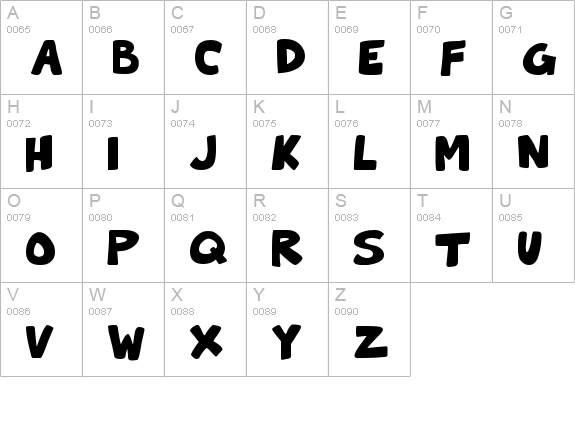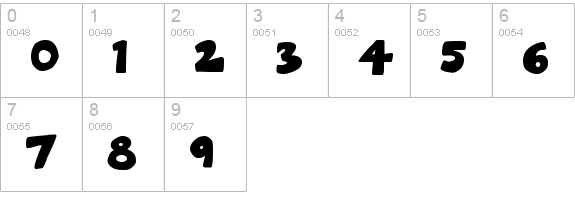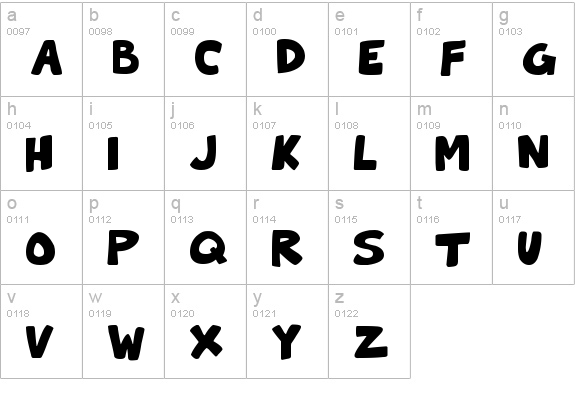
Toon Cats Font Details
Toon Cats is a free for personal use font in the Fancy > Comic category, designed by Darrell Flood. It has been downloaded 157 times and is available for Windows, Mac and Linux.
Toon Cats font is a whimsical and playful typeface that adds a touch of charm to any design project. With its quirky and cute characters, this font is perfect for creating lighthearted and fun designs. The Toon Cats font is versatile and can be used for a variety of purposes, from greeting cards to children's book illustrations.